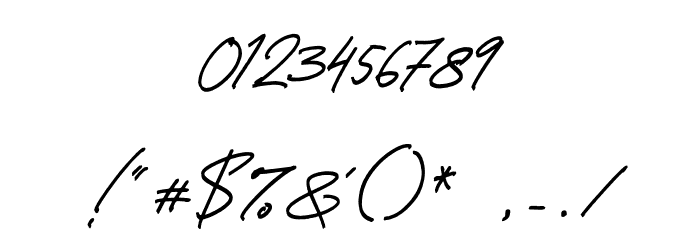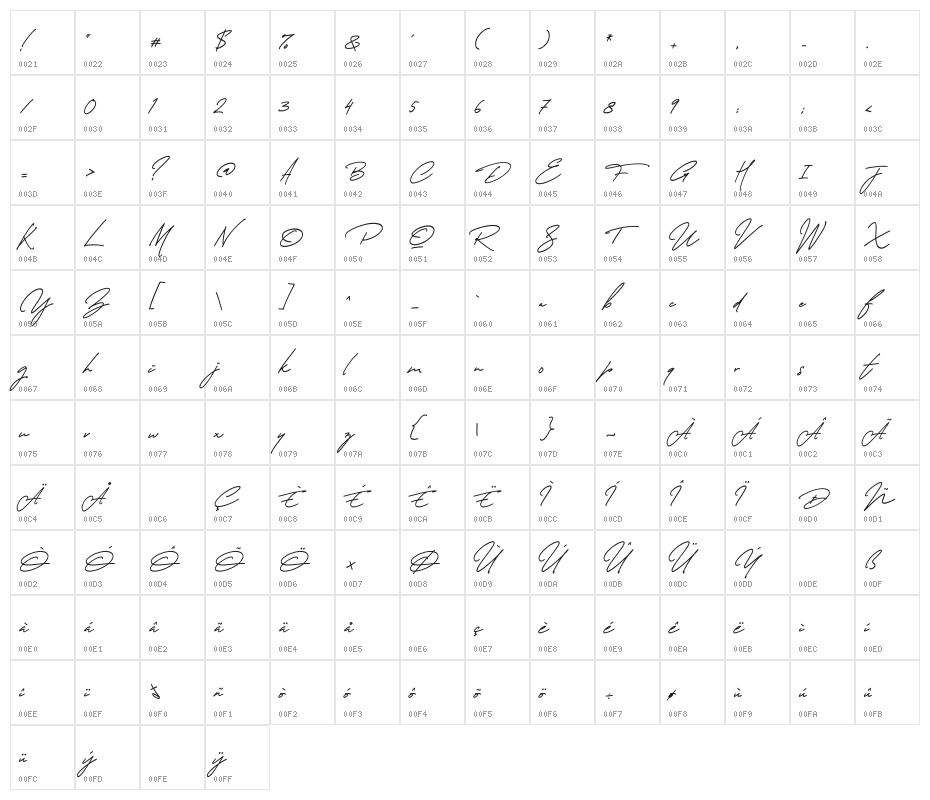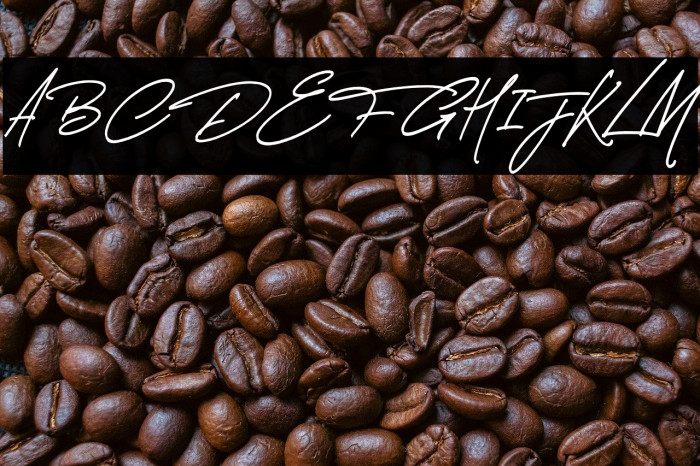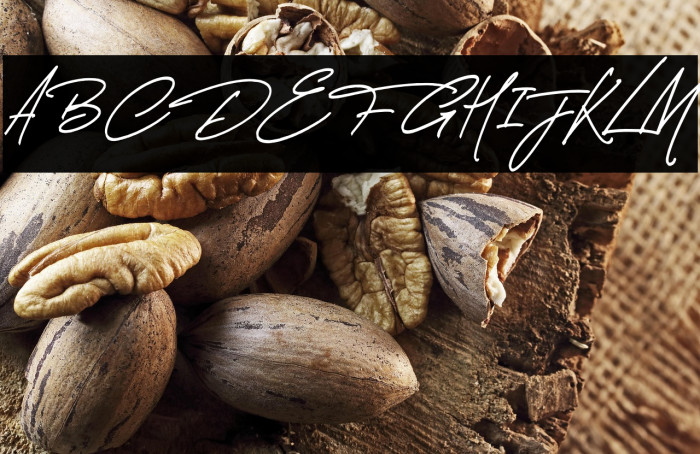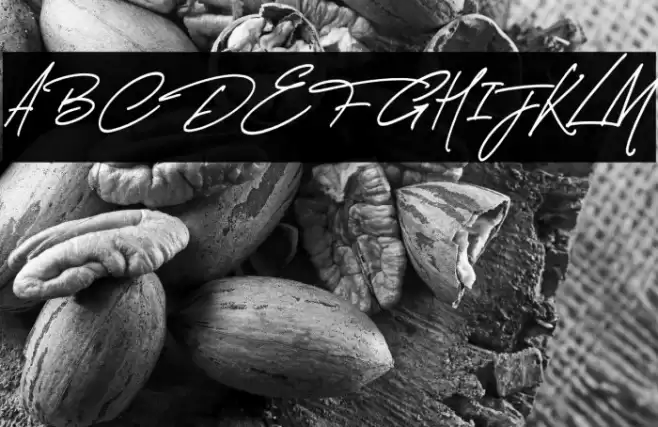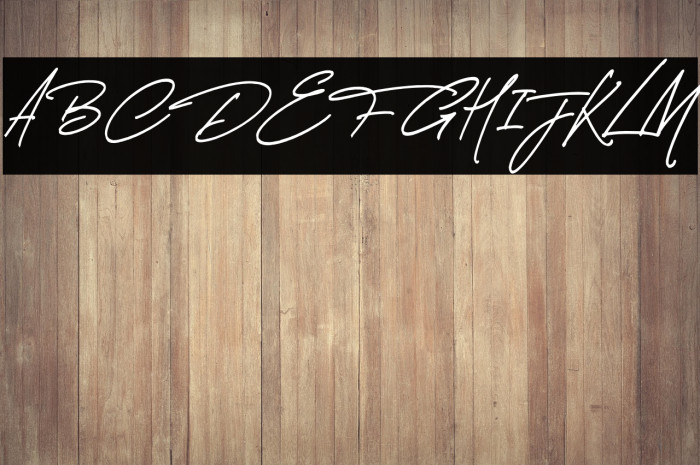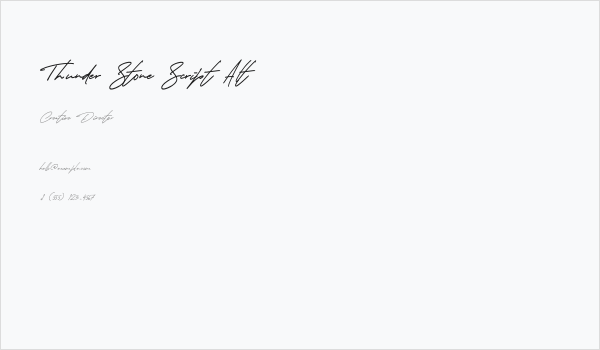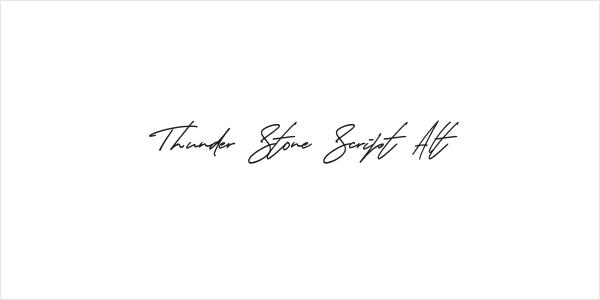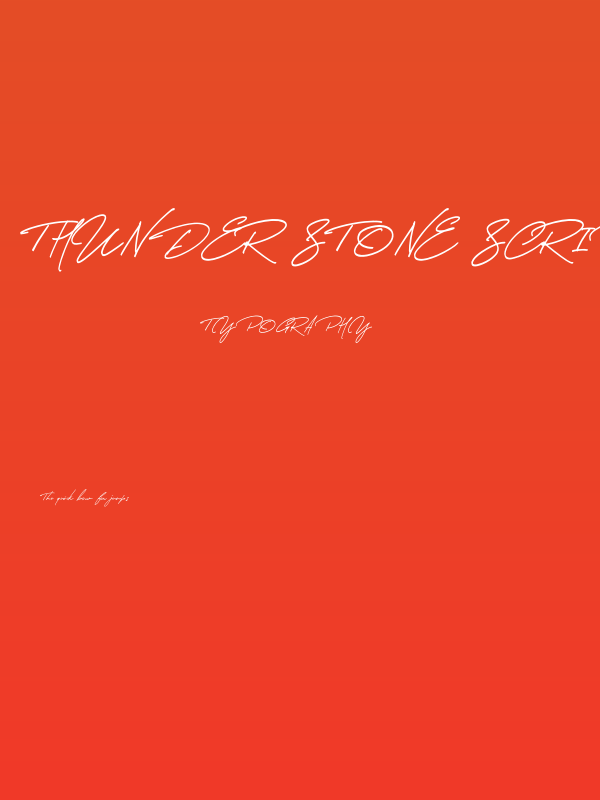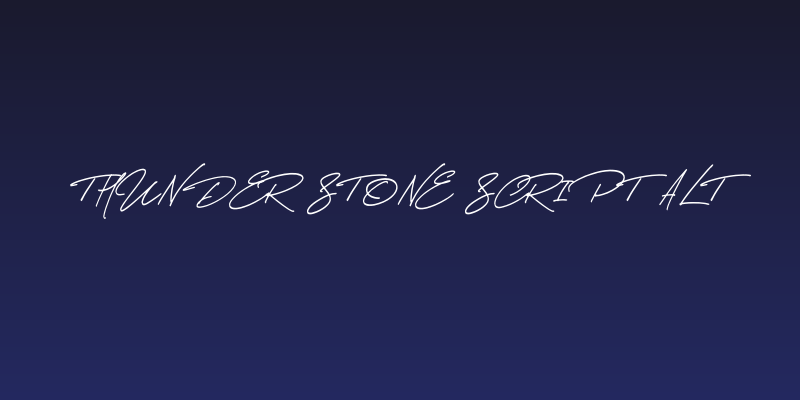
Thunder Stone Script Alt Font
Thunder Stone Script Alt Description
This font exudes a dynamic and energetic feel with its fluid, cursive script style. The letters are interconnected, creating a seamless flow that mimics natural handwriting. The strokes are varied in thickness, adding a sense of movement and liveliness. The uppercase letters are bold and prominent, while the lowercase letters maintain a consistent, elegant form. Numbers and special characters are designed to match the overall aesthetic, ensuring a cohesive look. This font is perfect for projects that require a personal touch or an artistic flair.
| Proposed Projects | Ideal for invitations, greeting cards, branding, and artistic projects. |